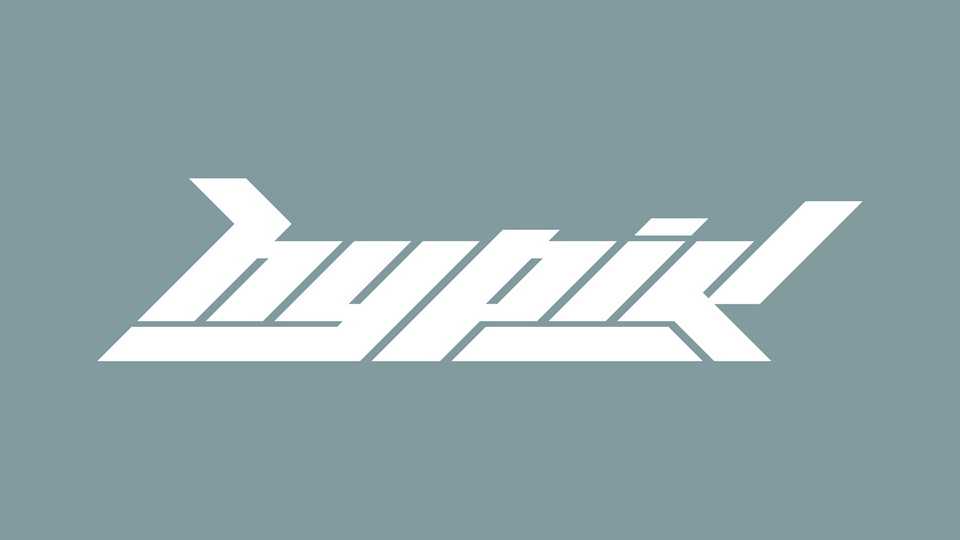
Download Hypik font, a display typeface inspired by Roadam font by HVNTER, the Vector Heart design movement, and Björk’s logo. Hypik font has strong appearance with great impact and recommended for titles, logos, posters and other display use.